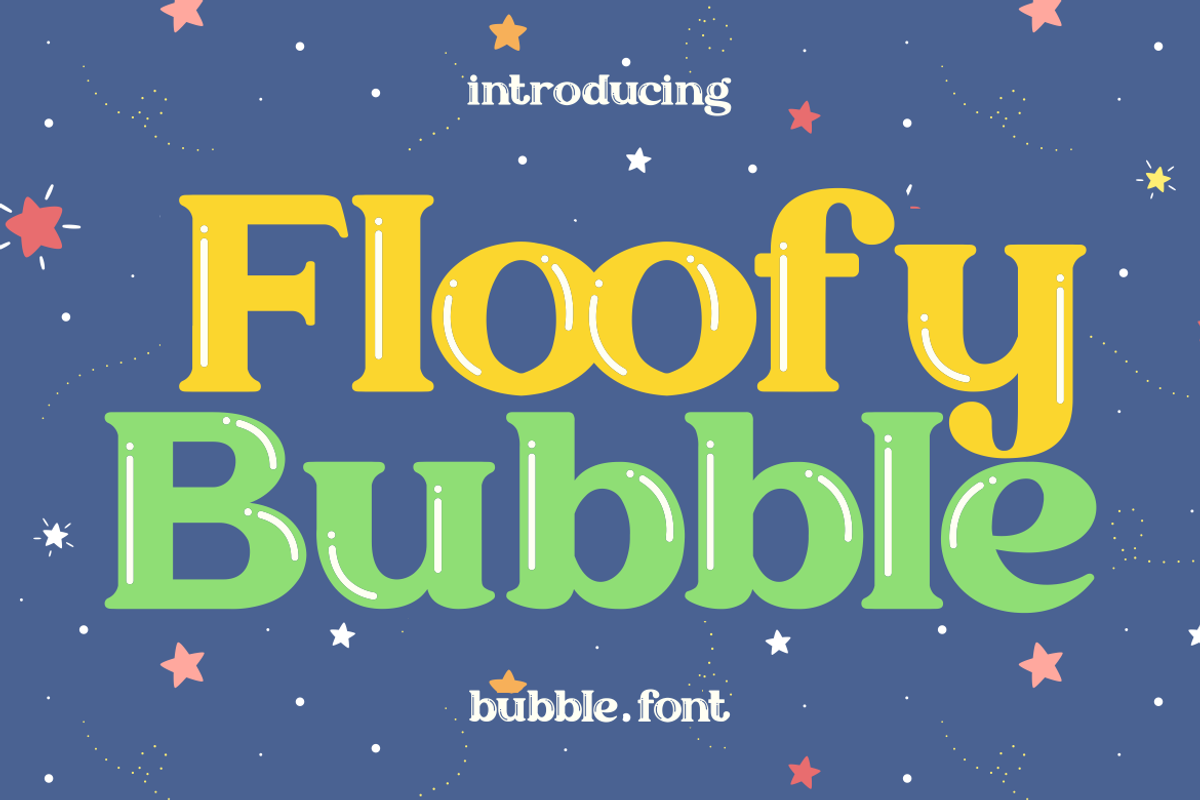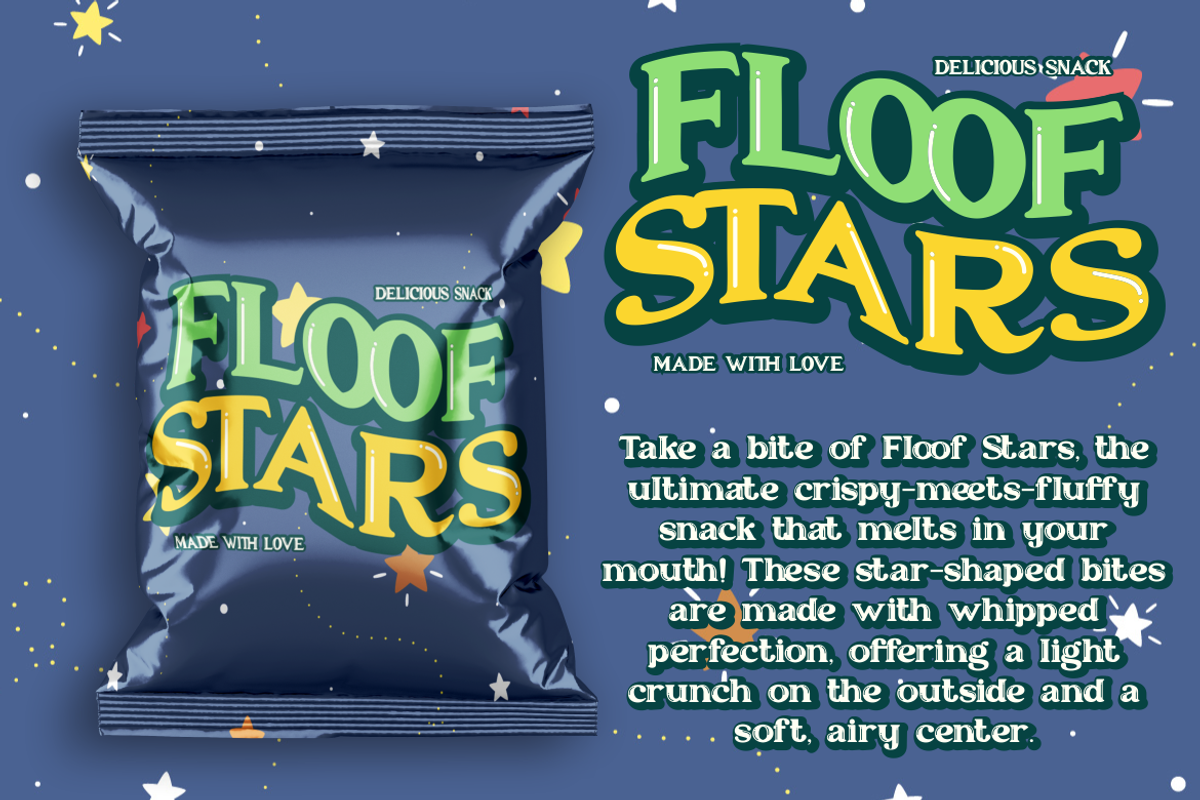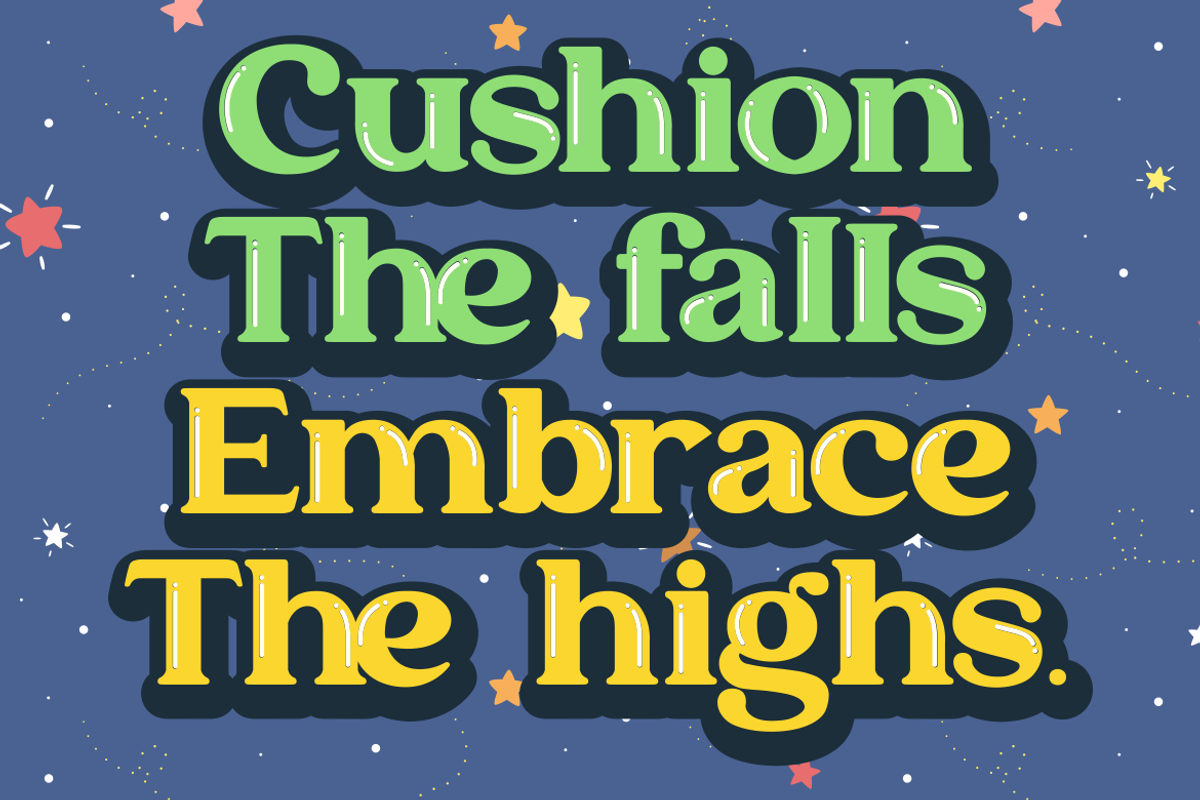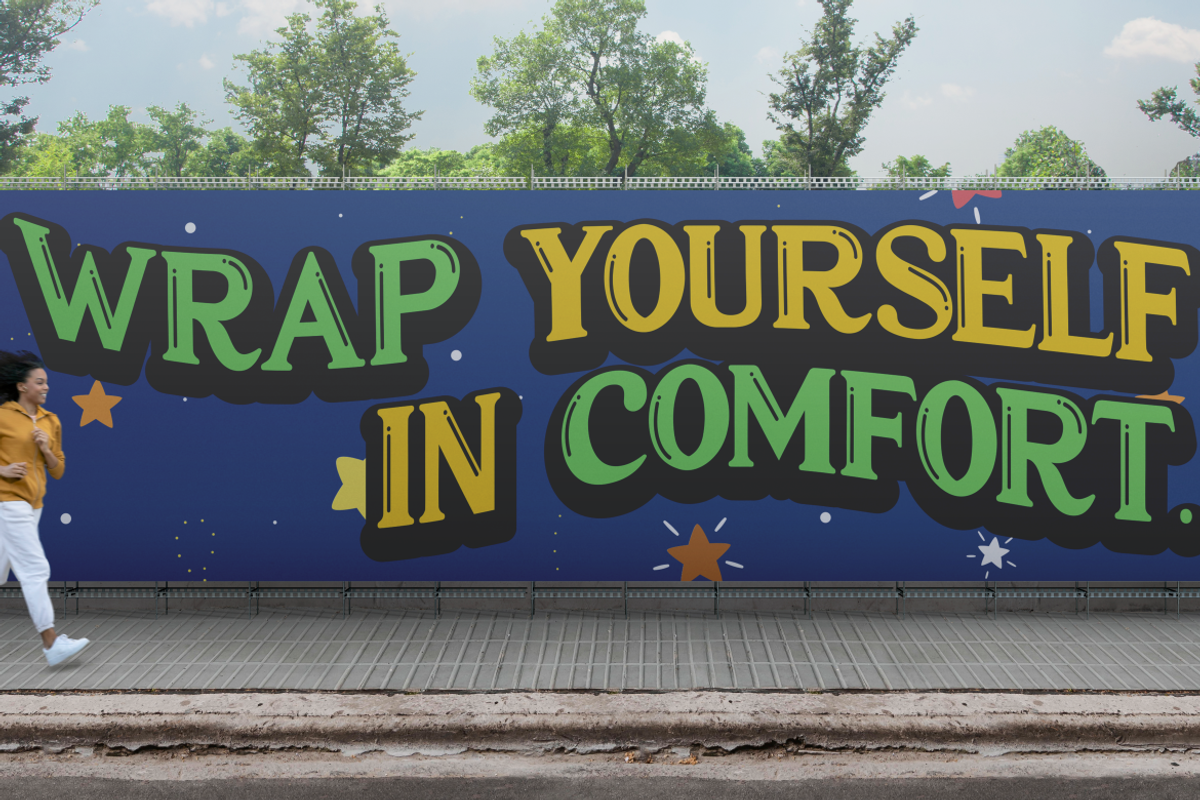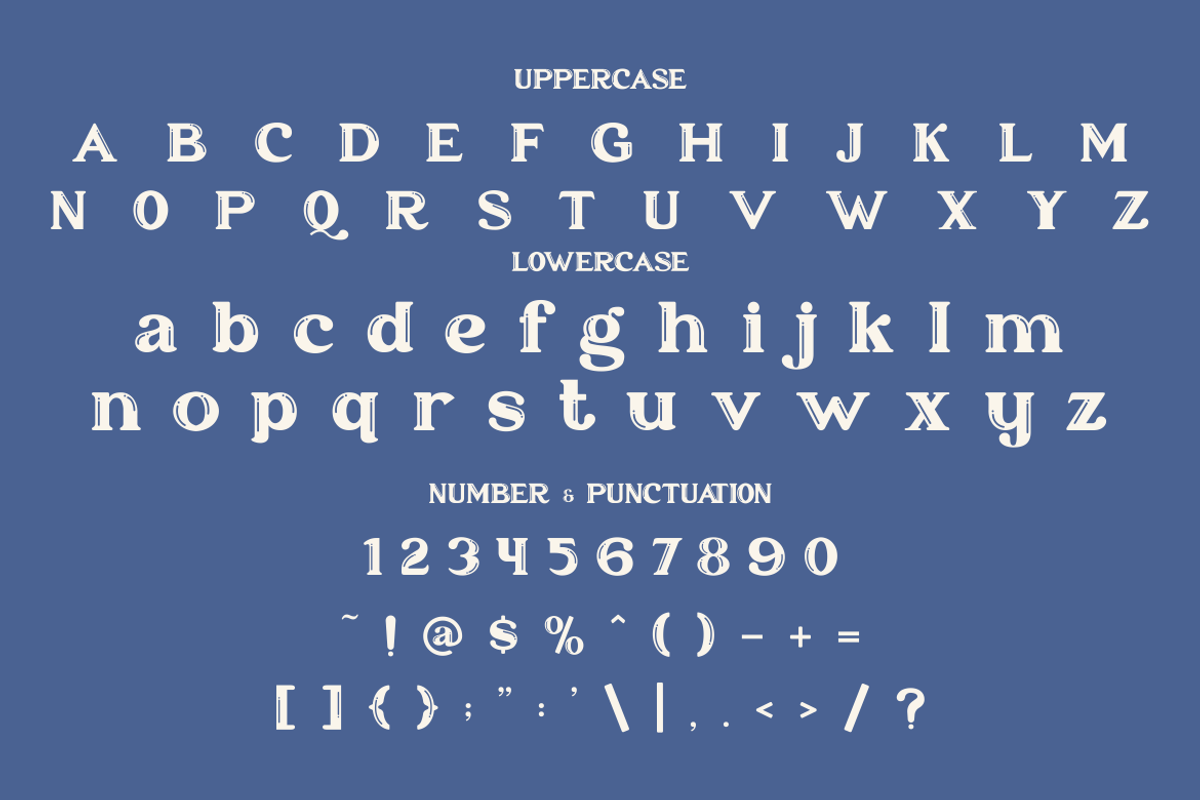
Floofy Bubble - Bubble Font
Introducing Floofy Bubble - Bubble Font, a playful and charming display font that brings joy and creativity to your designs. With its soft, rounded serif letters and bubbly shapes, this font exudes a fun, cheerful, and whimsical vibe. The mix of yellow and green hues enhances its lively appearance, making it perfect for projects that need a friendly and approachable touch. The background features a deep blue sky adorned with scattered stars and cute doodles, reinforcing the font's dreamy and imaginative aesthetic. Whether you're designing for kids, branding a fun business, or creating eye-catching packaging, Floofy Bubble delivers a unique and memorable look.
Perfect for a wide range of creative projects, Floofy Bubble is ideal for logos, posters, invitations, book covers, stickers, and social media graphics. Its playful yet structured form allows for versatility in both professional and casual settings. If you’re looking for a font that adds a retro yet modern charm to your work, this is the perfect choice. Add a dose of happiness and nostalgia to your designs with Floofy Bubble, the ultimate bubble serif font that captivates and delights!